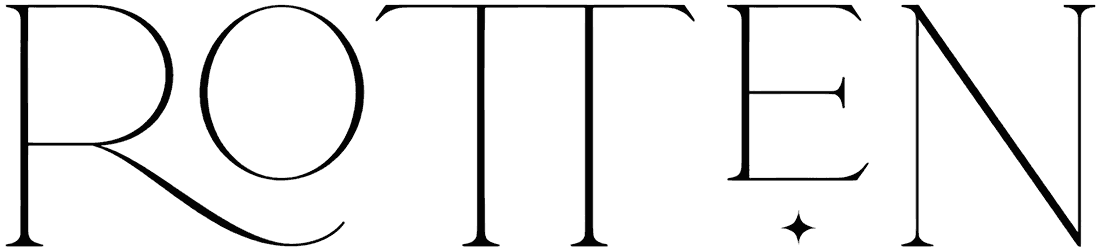
Rotten Font
Do you want to give your design a stylish and luxurious feeling with your words? This ligature font can be ideal to make it happen. With an elegant and delicate face, Rotten font can be used for any formal or informal project. Even with no offer for lowercase letters, Rotten can act well to illustrate your designs, like book covers, titles, wordmarks, branding, and whatnot.